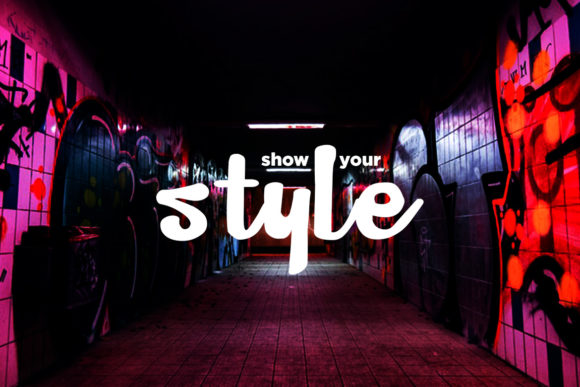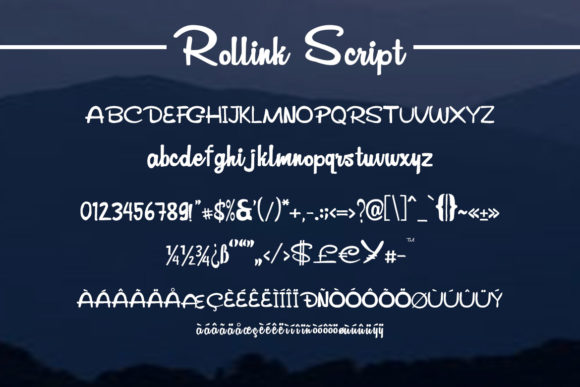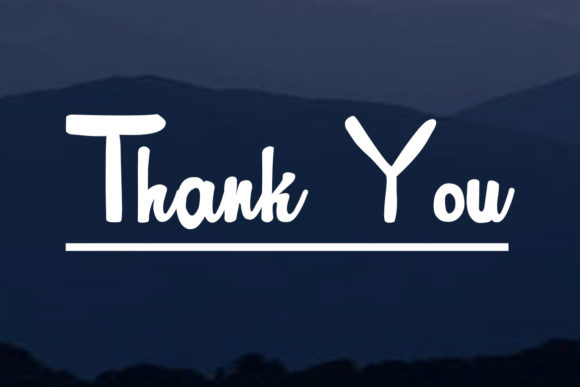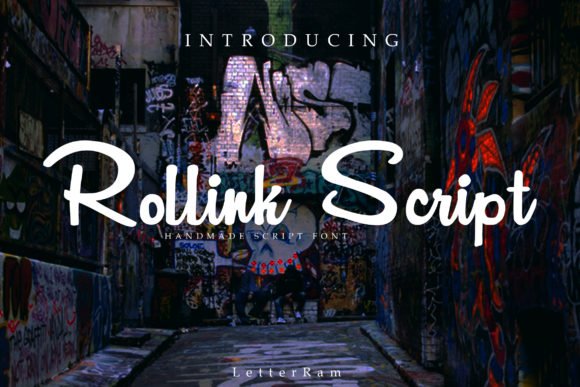
Introduction to Rollink Script Font
The Rollink is a modern script font.
It has a beautiful and distinctive writing style which will add an unique feel to your designs It’s perfect for logos, branding, motion graphics, visual designs, posters, invitations, typography, templates, product packaging, and advertisements.
Rollink Script Font offers exceptional quality and versatility, making it a valuable addition to your design toolkit. Whether you’re creating for personal projects or commercial use, Rollink Script Font delivers professional results.